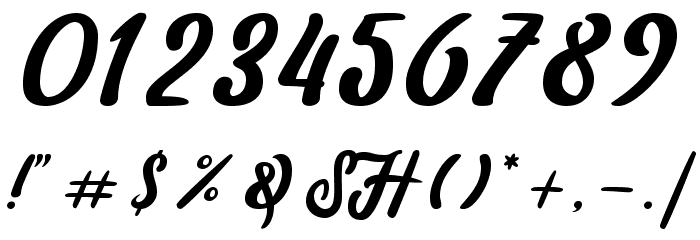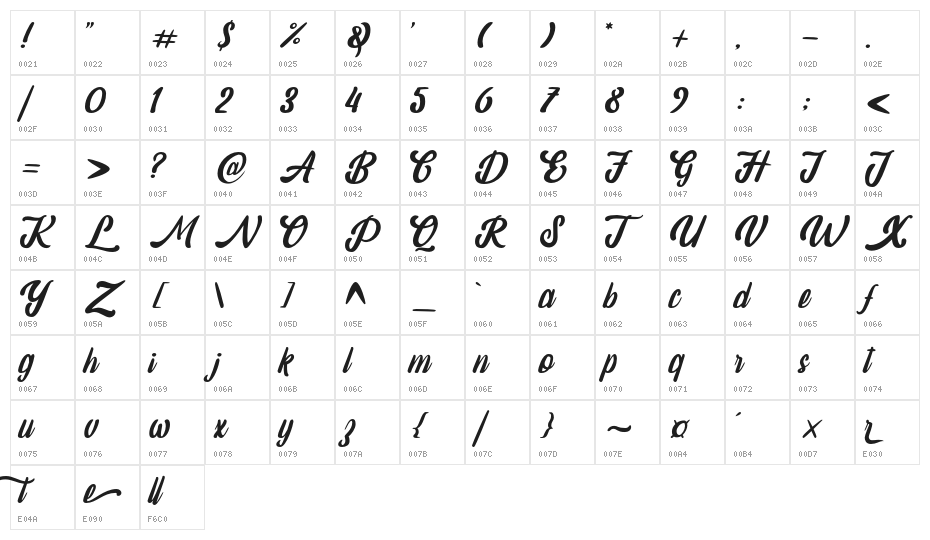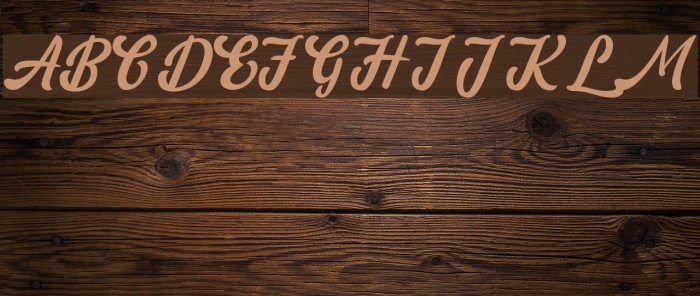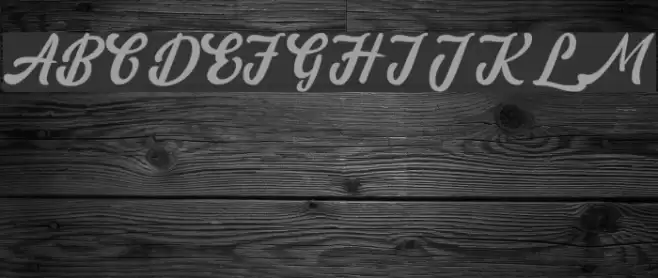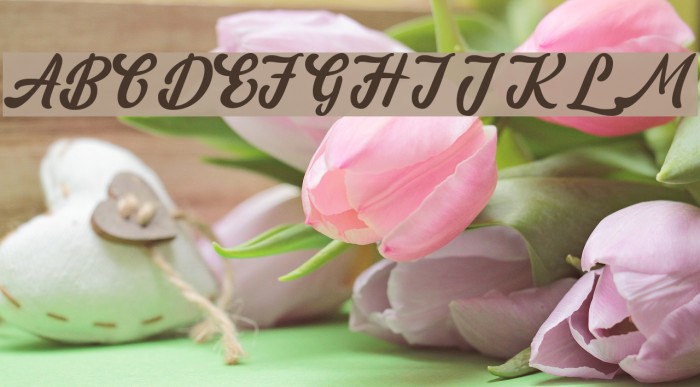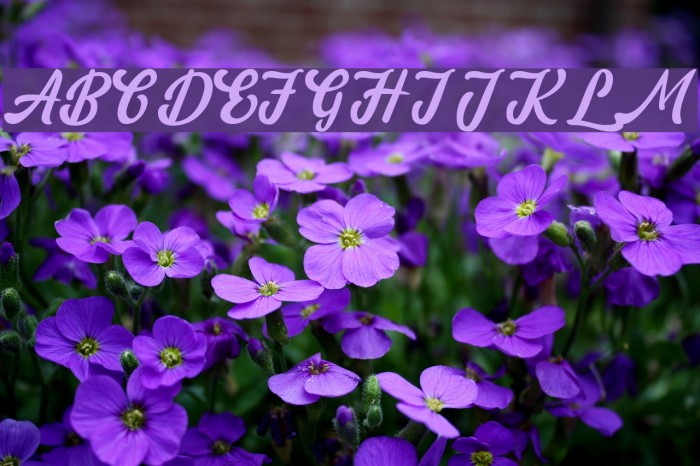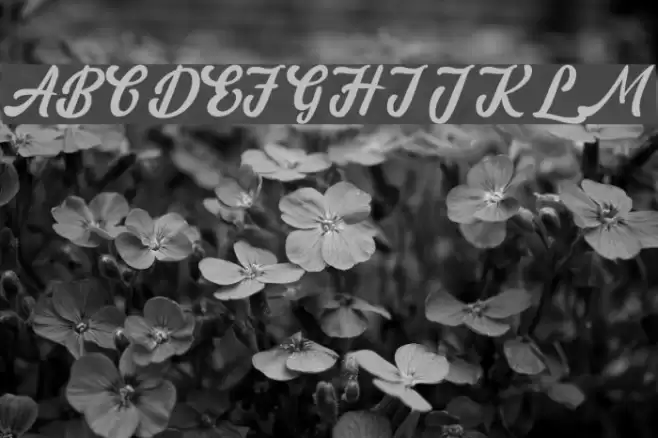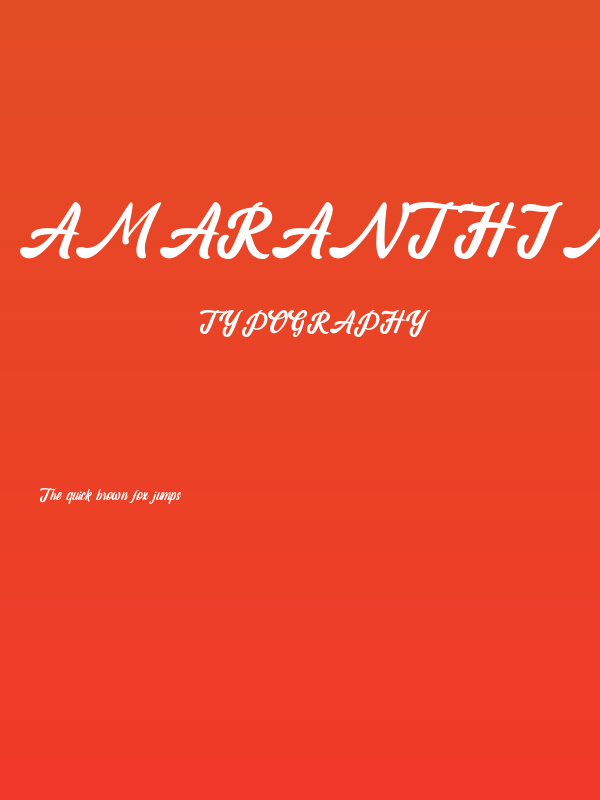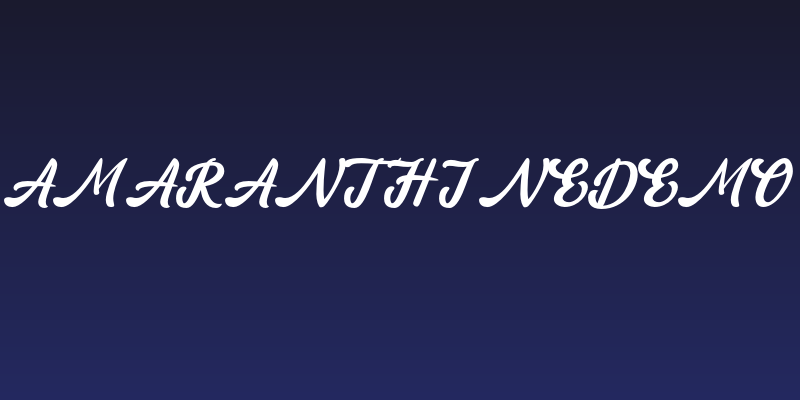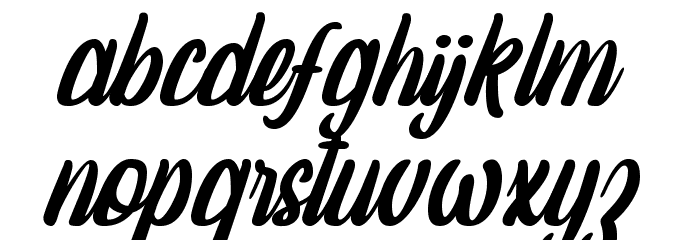
amaranthinedemo Font
This font features a bold, flowing script style that exudes elegance and sophistication. The uppercase letters are characterized by their sweeping curves and intricate loops, giving them a sense of movement and grace. The lowercase letters maintain a consistent flow, with some characters extending below the baseline, adding to the font's dynamic appearance. The numerals are bold and clear, matching the overall style with their rounded forms. Special characters are designed with the same attention to detail, ensuring they integrate seamlessly with the rest of the font. This font's bold strokes and smooth transitions make it ideal for projects that require a touch of elegance and flair.
Overall StyleElegant, Decorative
Use CaseHeadlines, Logos, Invitations
Proposed ProjectsIdeal for wedding invitations, luxury branding, elegant signage, and decorative headlines.